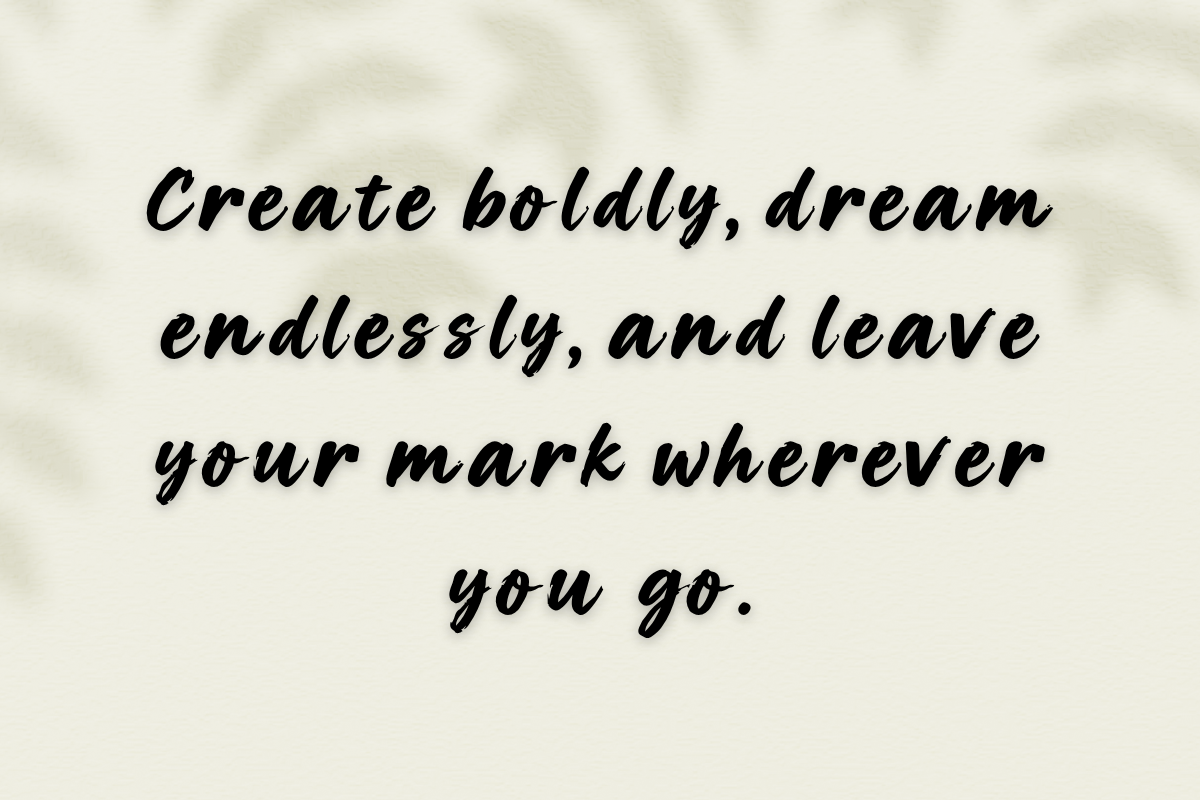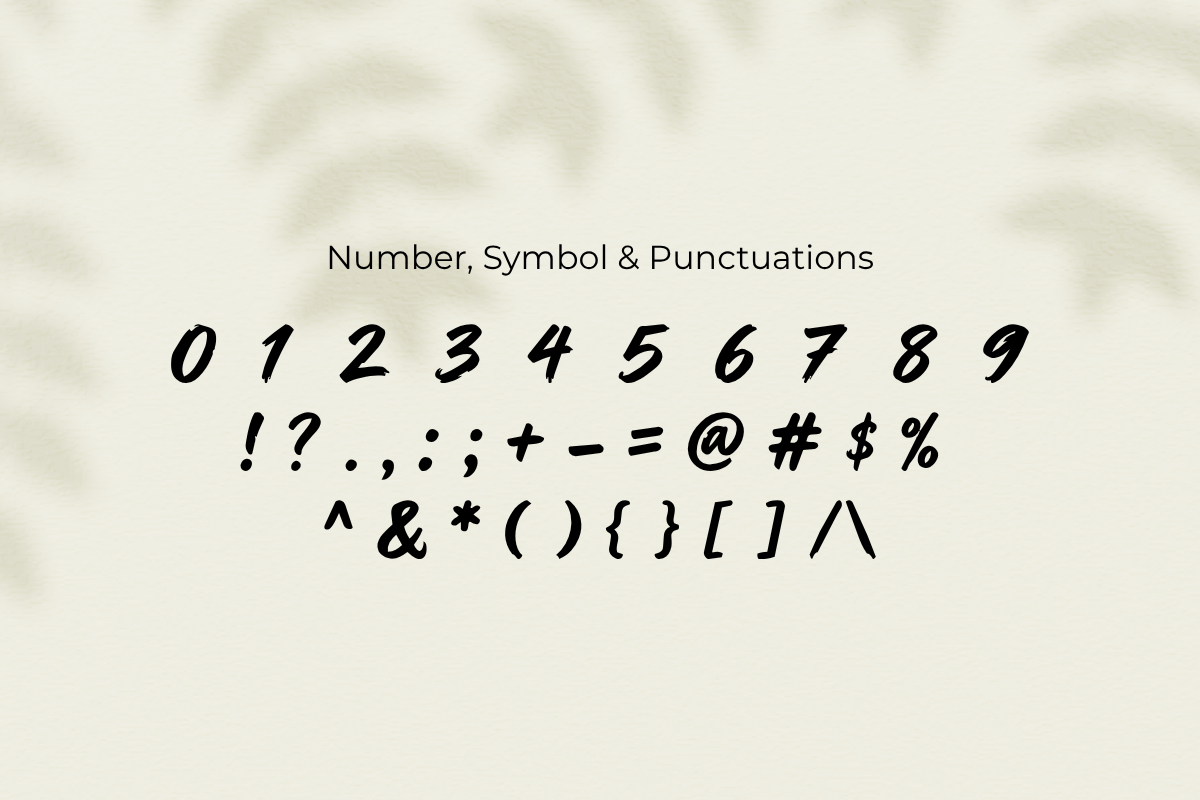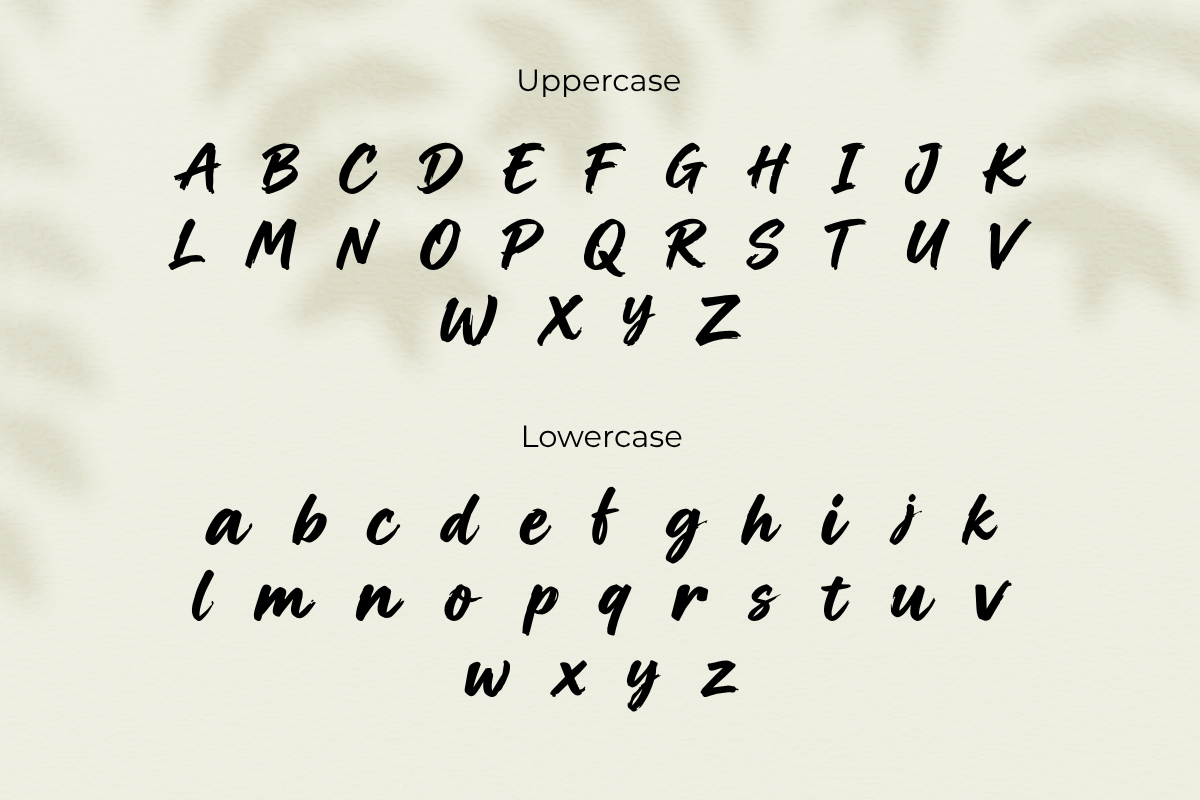
RogueInk-Expressive Handwritten
Meet Rogue Ink — a bold and expressive handwritten brush font designed to bring energy, movement, and personality to your creative projects.
With its dynamic brush strokes, natural handwritten character, slightly irregular forms, and strong thick-and-thin contrast, Rogue Ink creates an authentic hand-painted look while keeping your text clean and readable.
The separated lowercase characters provide clear spacing between each letter, making the font especially versatile for headlines, branding, apparel, posters, social media designs, and more.
Uppercase A–Z
Lowercase a–z
Numbers 0–9
Extensive punctuation & symbols
Bold expressive brush lettering
Separated, non-connected lowercase letters
Natural handwritten appearance
Dynamic thick-and-thin strokes
Organic brush texture
Clean and highly readable characters
Perfect for both short words and display typography